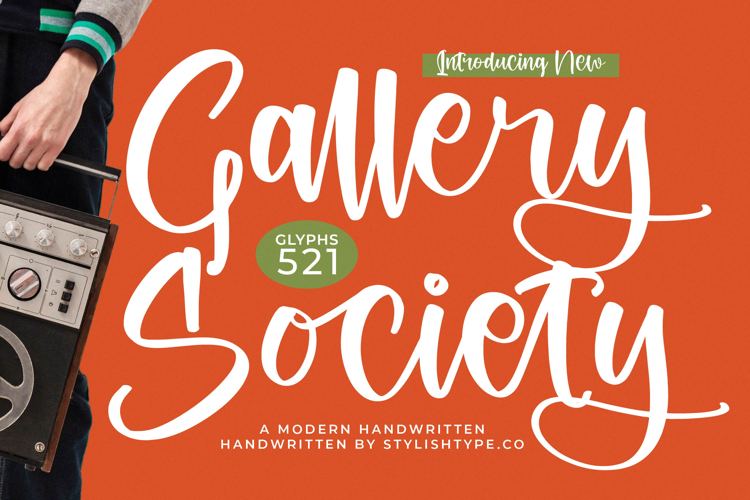
Gallery Society - Modern Handwritten
Gallery Society - Modern Handwritten Script, a uniquely expressive typeface designed to deliver instant impact and irresistible charm. This modern script combines the organic fluidity of genuine handwriting with a striking, generous weight, ensuring maximum legibility even at large display sizes. It is the perfect choice for designs demanding both authentic personality and professional polish, making complex typography effortlessly appealing.